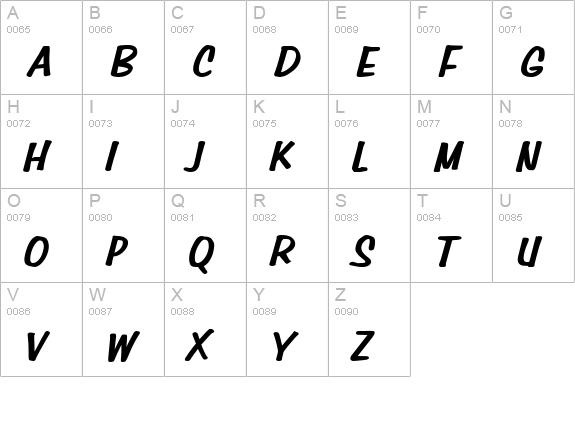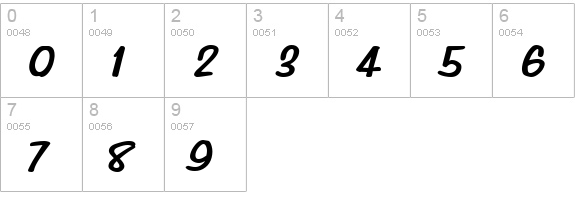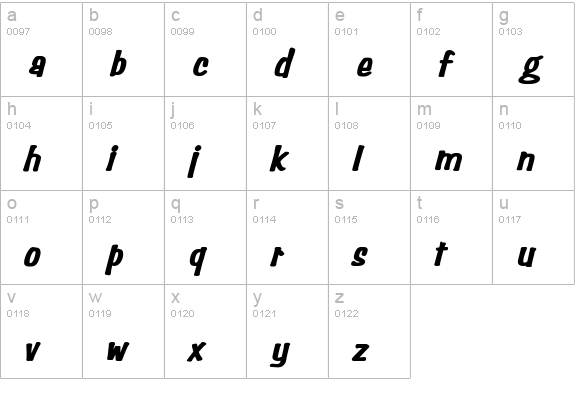
Simpson Heavy BoldItalic is a heavy, high-impact variant in the Simpson typeface family \xE2\x80\x94 well suited to high-impact headlines, posters, and display advertising.
Simpson Heavy BoldItalic is a captivating and stylish font that exudes power and confidence. Its bold and italicized characters add a touch of sophistication and elegance to any design project. With its strong presence and unique personality, this font is perfect for creating eye-catching headlines, logos, and branding materials. The Simpson Heavy BoldItalic font offers a seamless blend of strength and grace, making it suitable for a wide range of creative ventures. Whether you're designing a poster for a high-end fashion event or crafting a modern website interface, this font will effortlessly elevate your work to new heights. What's even better is that Simpson Heavy BoldItalic is available for free download at FontsMarket.com. Yes, you read that right – it's completely free! So you can enhance your designs with this remarkable font without having to worry about breaking the bank. Simpson Heavy BoldItalic stands out from the crowd with its bold and italicized aesthetic, making it a must-have for designers and typographers alike. Its versatility allows for endless possibilities in creating visually stunning and impactful designs. So why wait? Head over to FontsMarket.com and get your hands on Simpson Heavy BoldItalic today. Let your creativity soar with this remarkable font that seamlessly blends power, elegance, and style. And the best part? It won't cost you a penny!